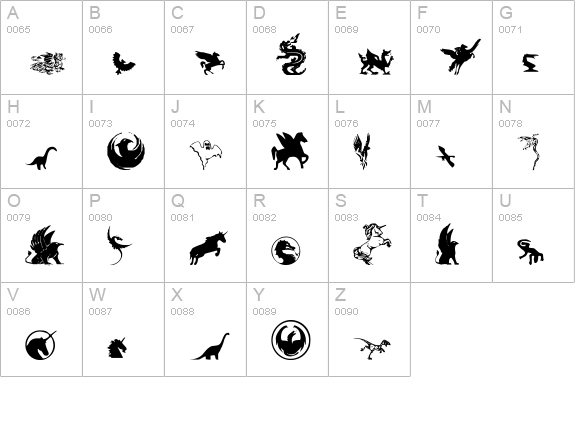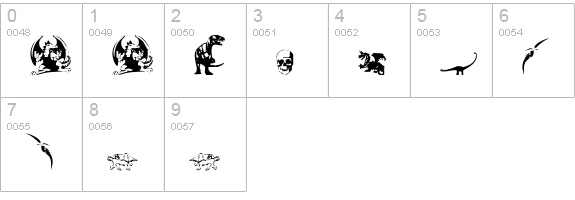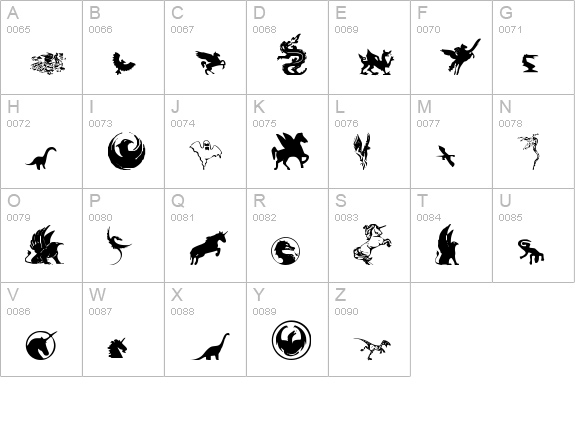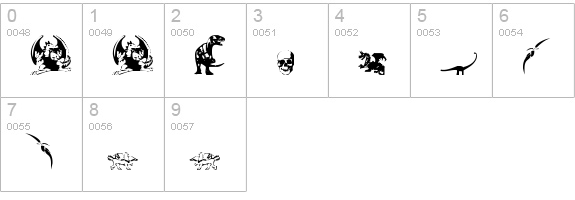
The Fantastic Creatures font is a whimsical and playful typeface that brings to mind mythical beings and magical worlds. With its intricate details and unique design, this font is perfect for adding a touch of fantasy to your projects. Each letter is meticulously crafted to capture the essence of fantastical creatures, making it a truly enchanting choice for any creative endeavor. Best of all, the Fantastic Creatures font is free to download at FontsMarket.com! Whether you're working on a poster, logo, or website design, this font will surely captivate your audience and transport them to a world of wonder and imagination. Embrace the magic of the Fantastic Creatures font and let your creativity soar to new heights. Download it today and start creating enchanting designs that will leave a lasting impression.